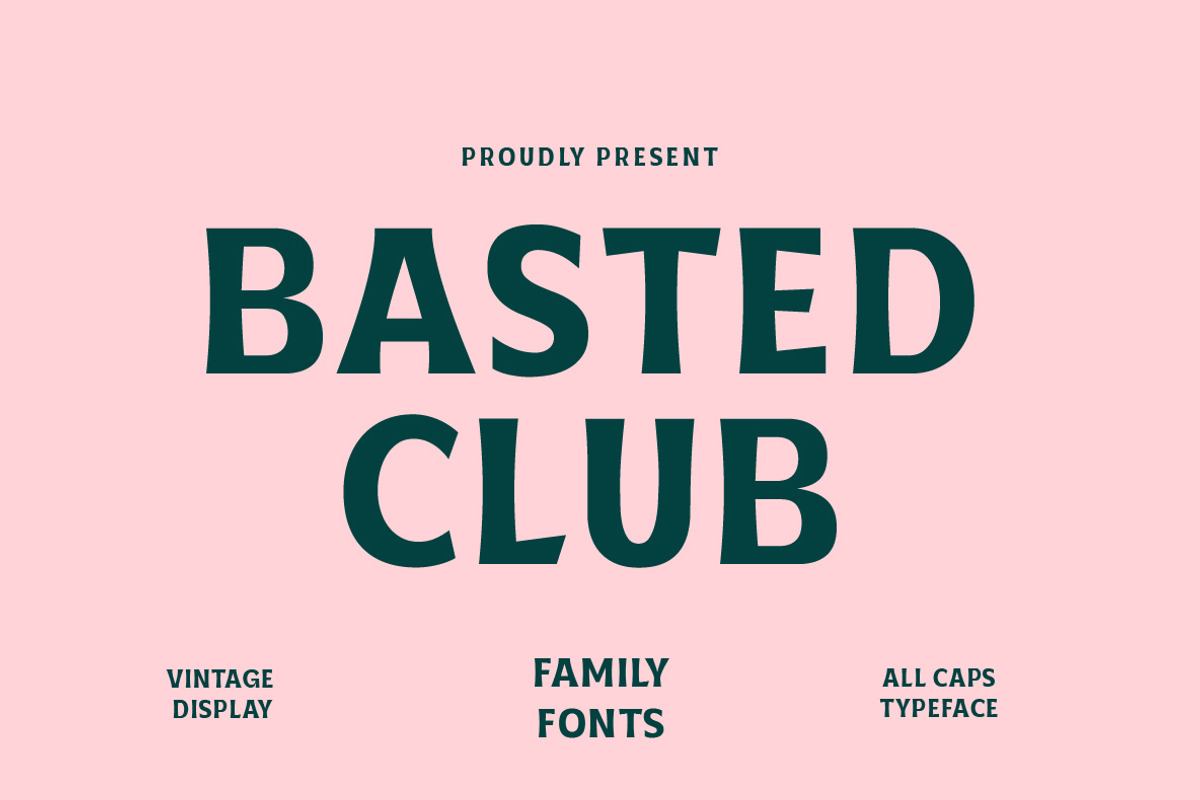
Basted Club – Vintage Font Free Download is a bold and nostalgic typeface inspired by retro signage, old-school athletics, and vintage Americana. With strong lines, classic curves, and a slightly rugged texture, this font is perfect for logos, barbershop branding, apparel, posters, and anything that needs a touch of vintage grit.
Its throwback style delivers timeless character while remaining versatile and easy to read. Whether you're designing for a coffee shop, a craft beer label, or retro sportswear, Basted Club gives your typography an instant dose of classic cool.
Designers love Basted Club for its authentic vintage vibe and powerful presence across both digital and print. Want to make your design feel like a timeless classic? Download Basted Club – Vintage Font Free Download and bring retro swagger to your next project.